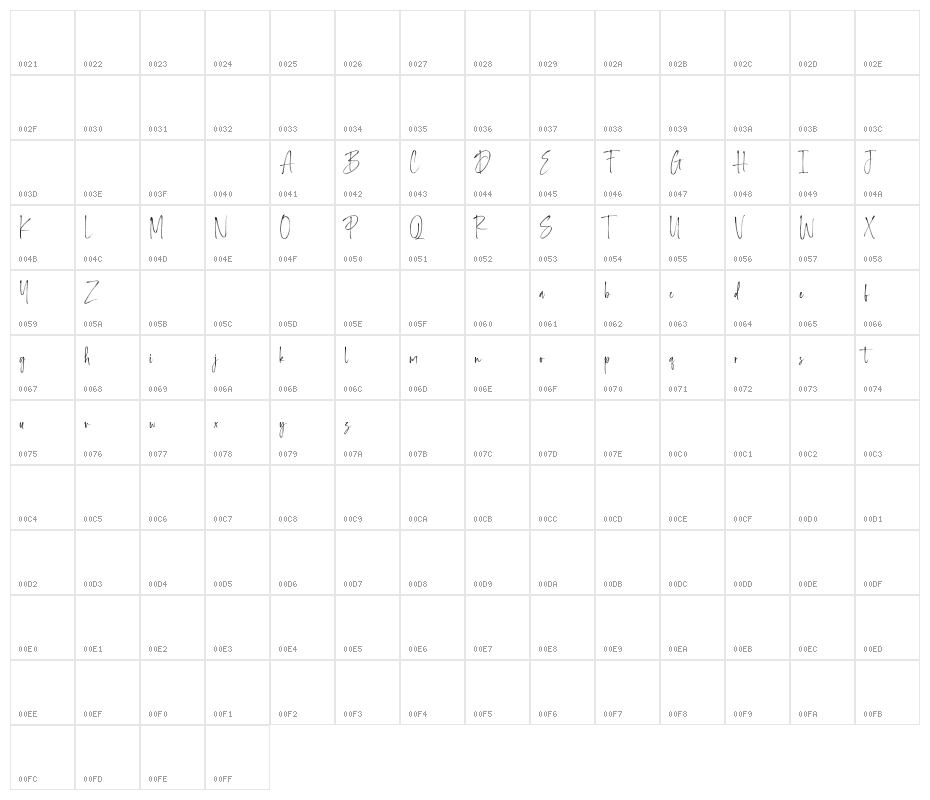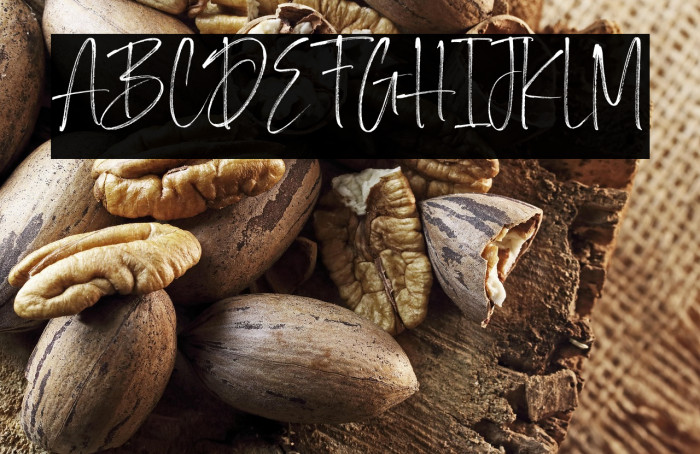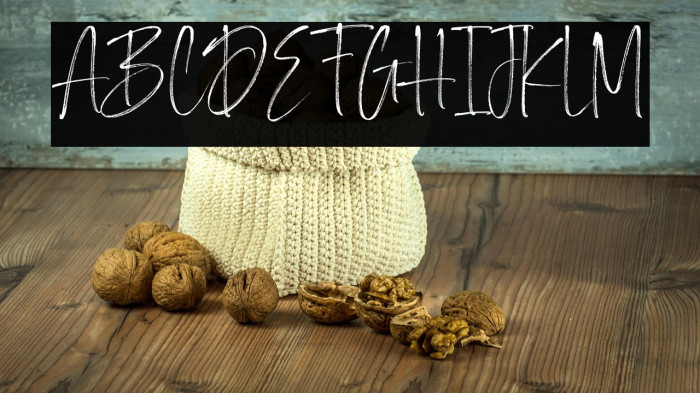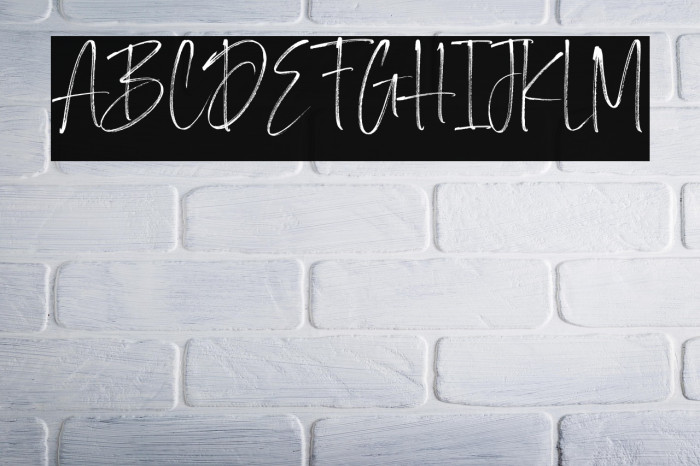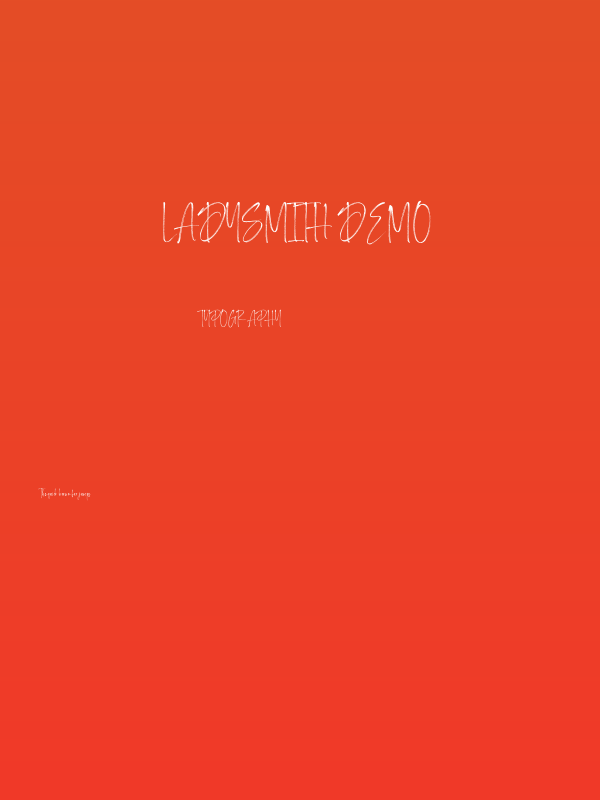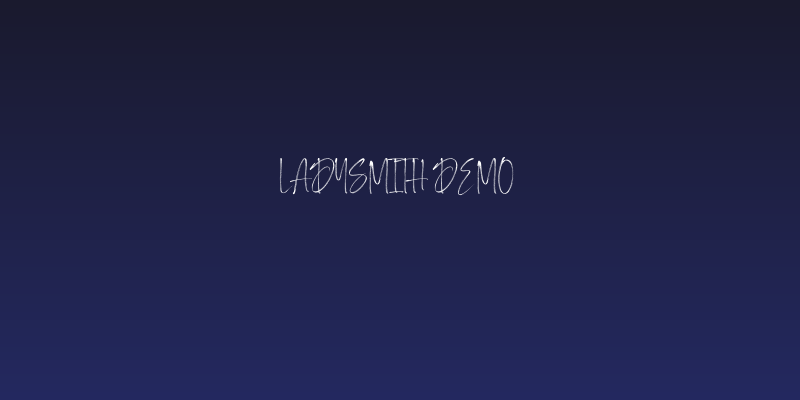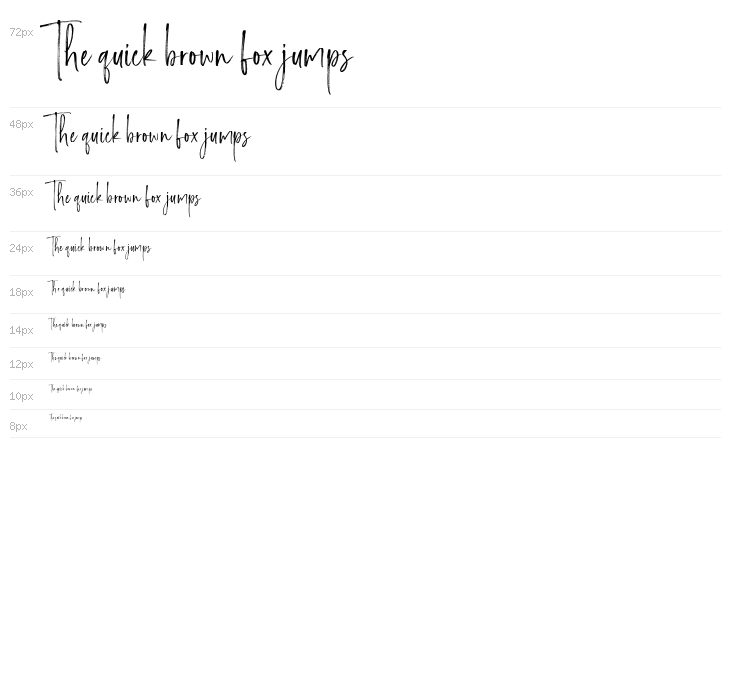
Ladysmith Demo Font
Ladysmith Demo Description
This font features a handwritten style with a casual and artistic flair. The uppercase letters are tall and slightly narrow, with a playful, flowing quality that suggests movement and energy. The lowercase letters maintain a consistent style, with elongated ascenders and descenders that add to the font's whimsical nature. The strokes are uneven, mimicking the natural variations of handwriting, which gives the font a personal and approachable feel. The overall appearance is both elegant and relaxed, making it suitable for creative and informal applications.
Overall StyleCasual, Artistic
Use CaseLogos, Invitations, Personal Branding
Proposed ProjectsIdeal for greeting cards, invitations, personal branding, and creative projects that require a personal touch.